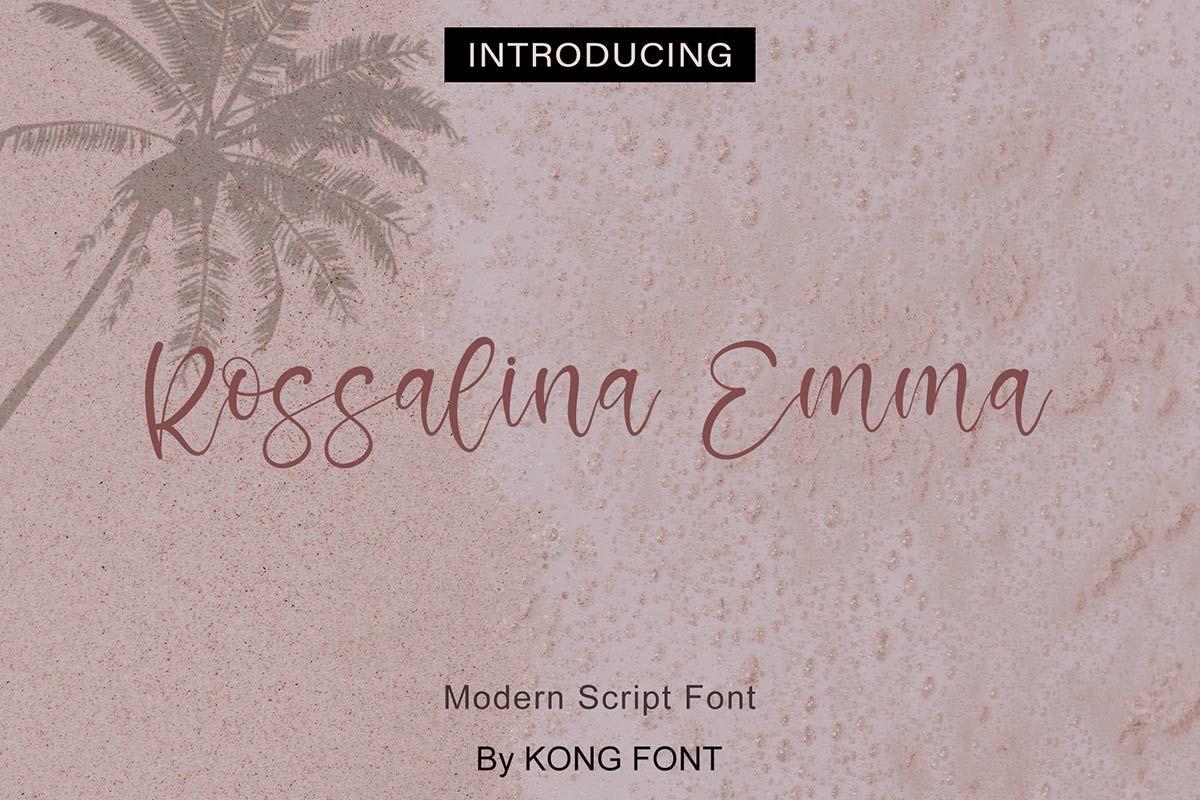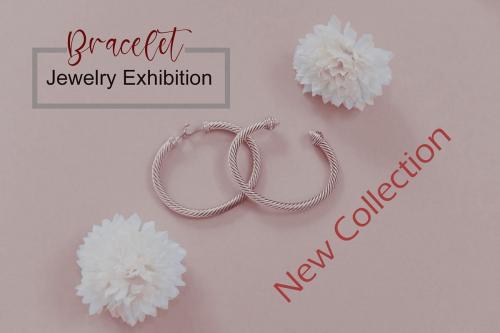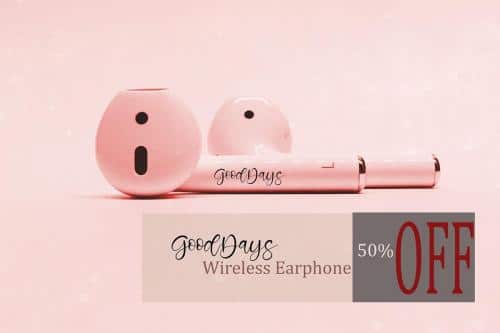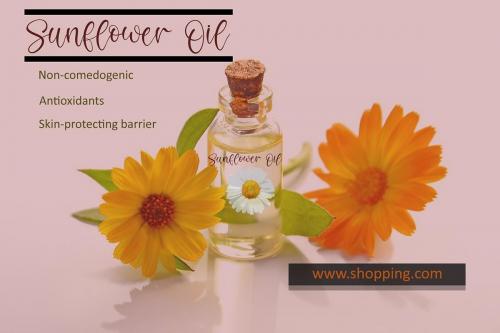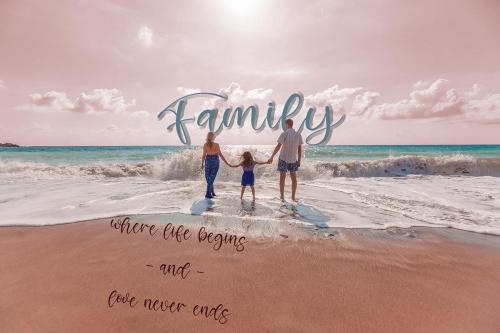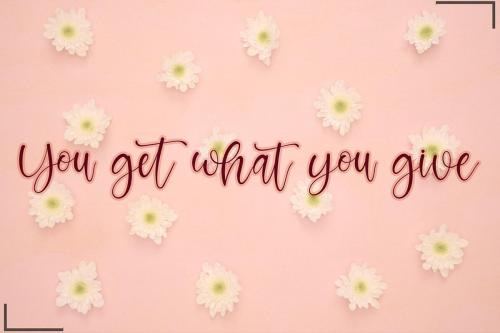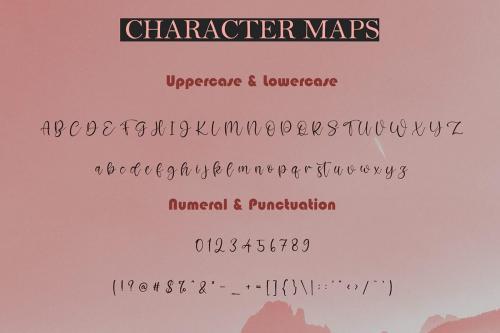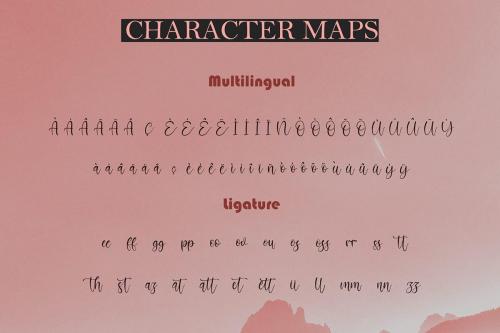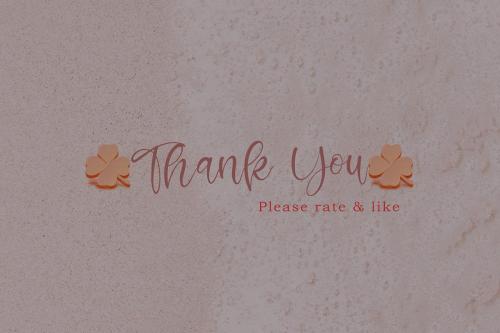
Rossalina Emma Font
Rossalina Emma Font is ideal for branding and decorate your any project. Also with their help, you can create a logo or beautiful frame for your home. Or just use for your small business, book covers, stationery, marketing, blog, magazines and more.
This font is easy to use has OpenType features and all characters are PUA encoded.
• Designer: Font Kong